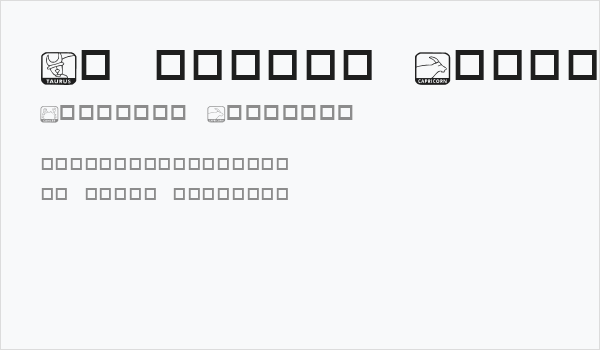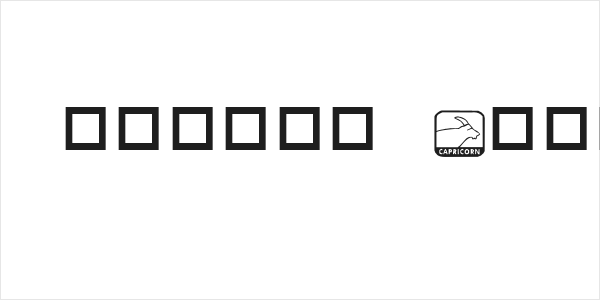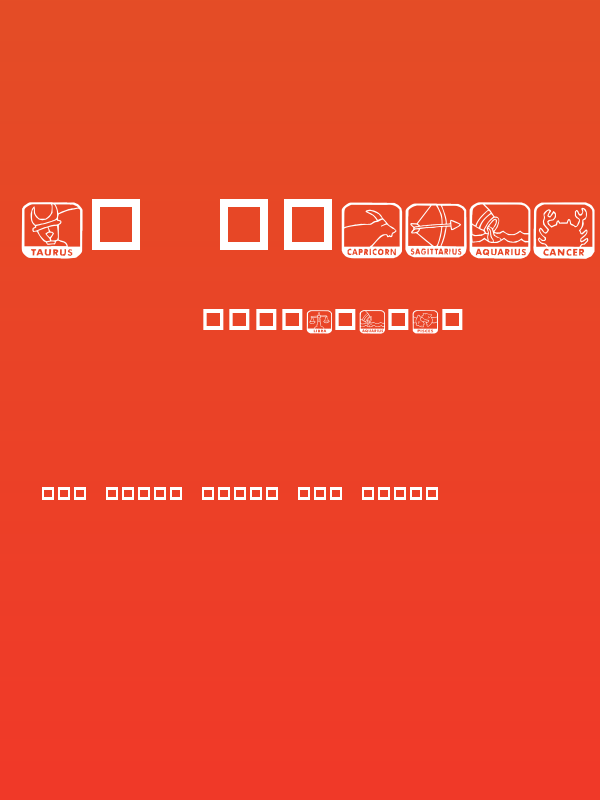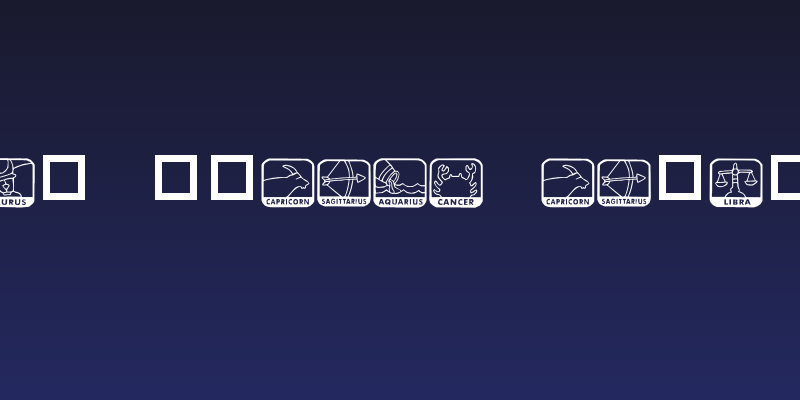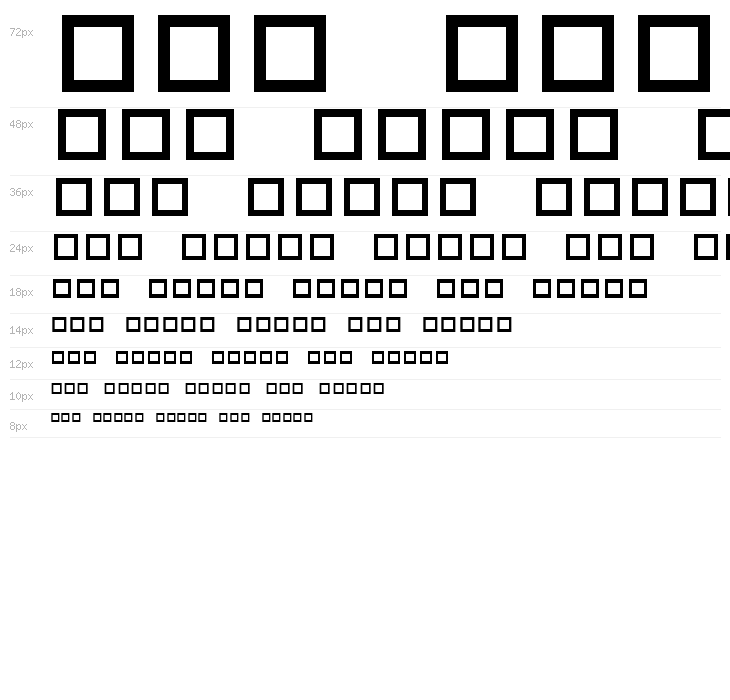
KR Zodiac Dings Font
KR Zodiac Dings Description
This is not a traditional font but a collection of zodiac-themed dingbats. Each symbol represents a zodiac sign, depicted in a playful and illustrative style. The symbols are enclosed in squares, giving them a uniform appearance. The designs are detailed, capturing the essence of each zodiac sign with a whimsical touch. These dingbats are ideal for adding a unique and astrological flair to projects.
| Use Case | Logos, Decorative elements, Themed designs |
| Proposed Projects | Ideal for astrological websites, horoscope sections in magazines, themed invitations, or any project requiring a zodiac motif. |